On the Future of AI Fonts
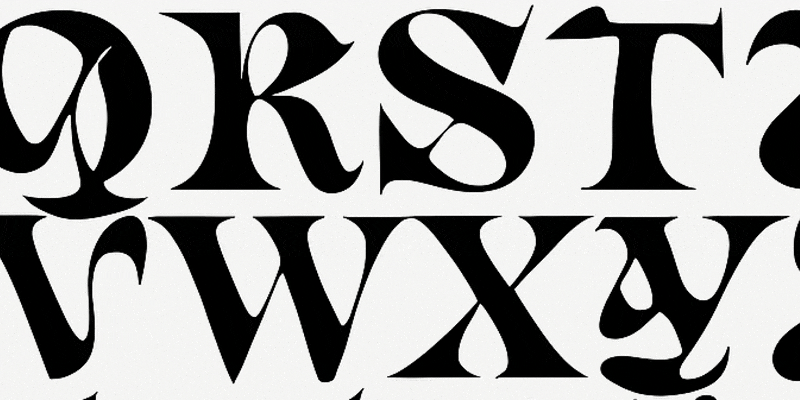
AI Fonts and Non-Human Typography
We've recently noticed an increased interest in AI in virtually every aspect of our lives. AI fonts, which had previously seemed like a distant possibility, are now just one ChatGPT subscription away.
Whenever a new AI feature is released, Twitter always has an outcry announcing the industry's inevitable collapse. We wanted to address our concern with the latest developments and explain why an AI-generated font will never be a valid substitute for a typeface designed by a professional designer. While we know some of our points may apply to other industries, we'll concentrate on typography and fonts, as they are our main areas of expertise.
Creativity vs Meticulousness
Typography, and particularly type design, isn't a very creative pursuit. Of course, it's not entirely devoid of creativity, but for the most part, the job of a type designer is being meticulous. Designing a typeface takes months and sometimes even years. This time is mainly spent perfecting Bezier curves, adjusting kerning, and tweaking contrast. These adjustments may seem imperceptible initially, but these minute details make type design tricky. One of the best qualities of a type designer is thoroughness and meticulousness. A great typeface isn't always the flashiest, but one that works as a self-contained system in which every letter and symbol is well thought out and designed.
For now, one of the things that fonts generated by the AI lacks is consistency, which, given that it's a large language model that produces no original thought of its own, is a flaw that's not likely to get patched soon. AI fonts may be a fun experiment, but nothing will replace the skill and thoroughness of a professional type designer. You can come up with a cool-looking idea, but it won't hold up to scrutiny from either a technical or stylistic standpoint.
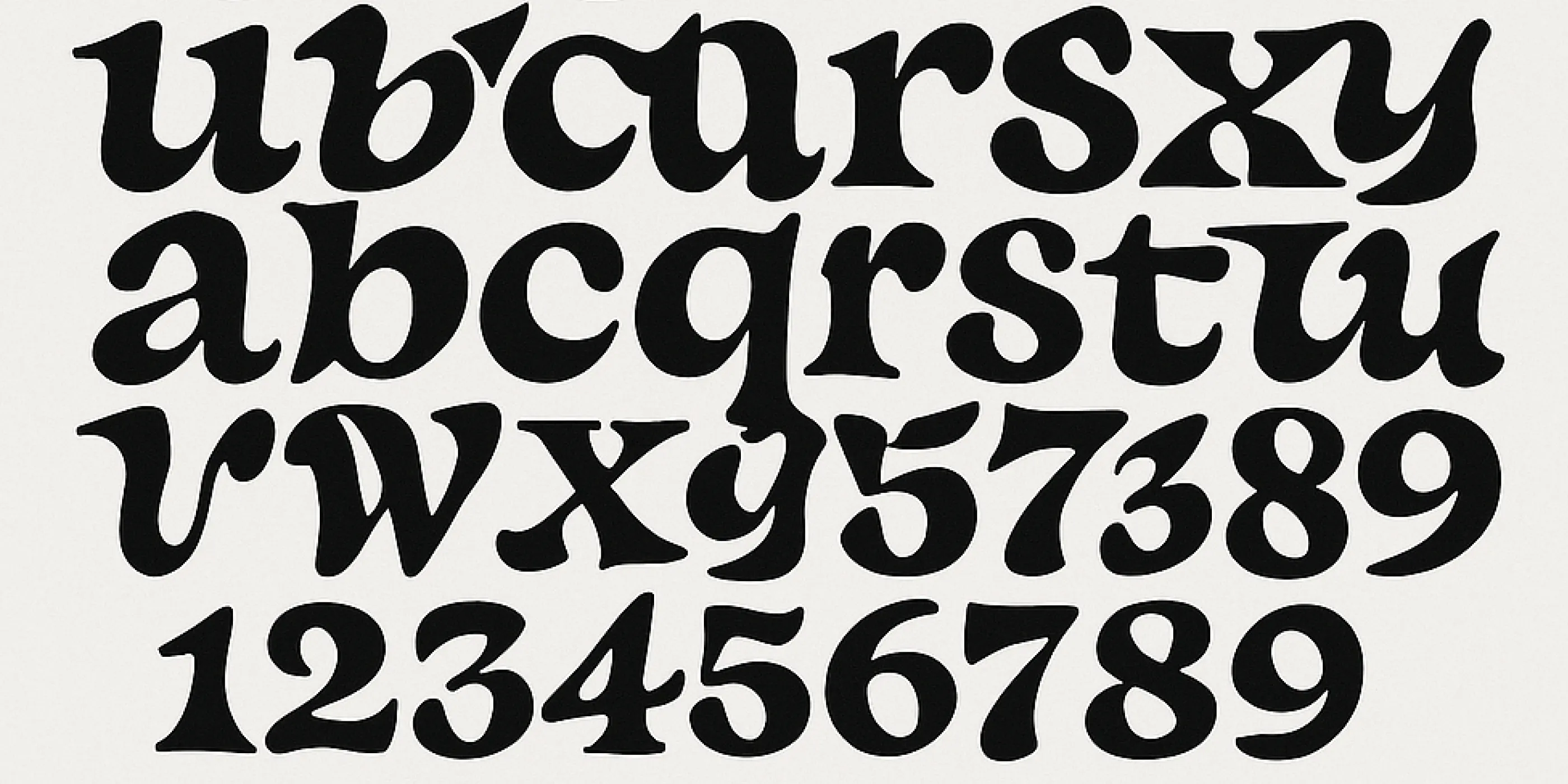
↑ The first iteration of a prompt 'high contrast experimental typeface'
Genuine vs Artificial
To design good fonts, you'd also need to discern good ideas from bad and pick original ideas over kitch—all that is overused, shallow, and uninteresting. Being a professional type designer takes humanity, perception, taste, and love for your craft—all the qualities AI desperately lacks.
For us at Groteskly Yours Studio, any work done by a human is better than that of a robot, however advanced and human-like. For us, it's not just a matter of preference or some subjective pro-human agenda — it's our way of looking at work, life, and our place in the ever-changing AI-dominated modern landscape. There's a reason why a microwavable steak and mashed potatoes will never taste as good as the same meal prepared by a chef — microwavable food is being routinely manufactured, not cooked with love and care.
AI fonts (and any work of art produced by AI) work the same: just as you wouldn't want to treat your loved ones to a machine-made dinner, and you won't want a reused, artificially generated, and likely copied font design for your branding. Human-made typography will always be superior to that of a machine.
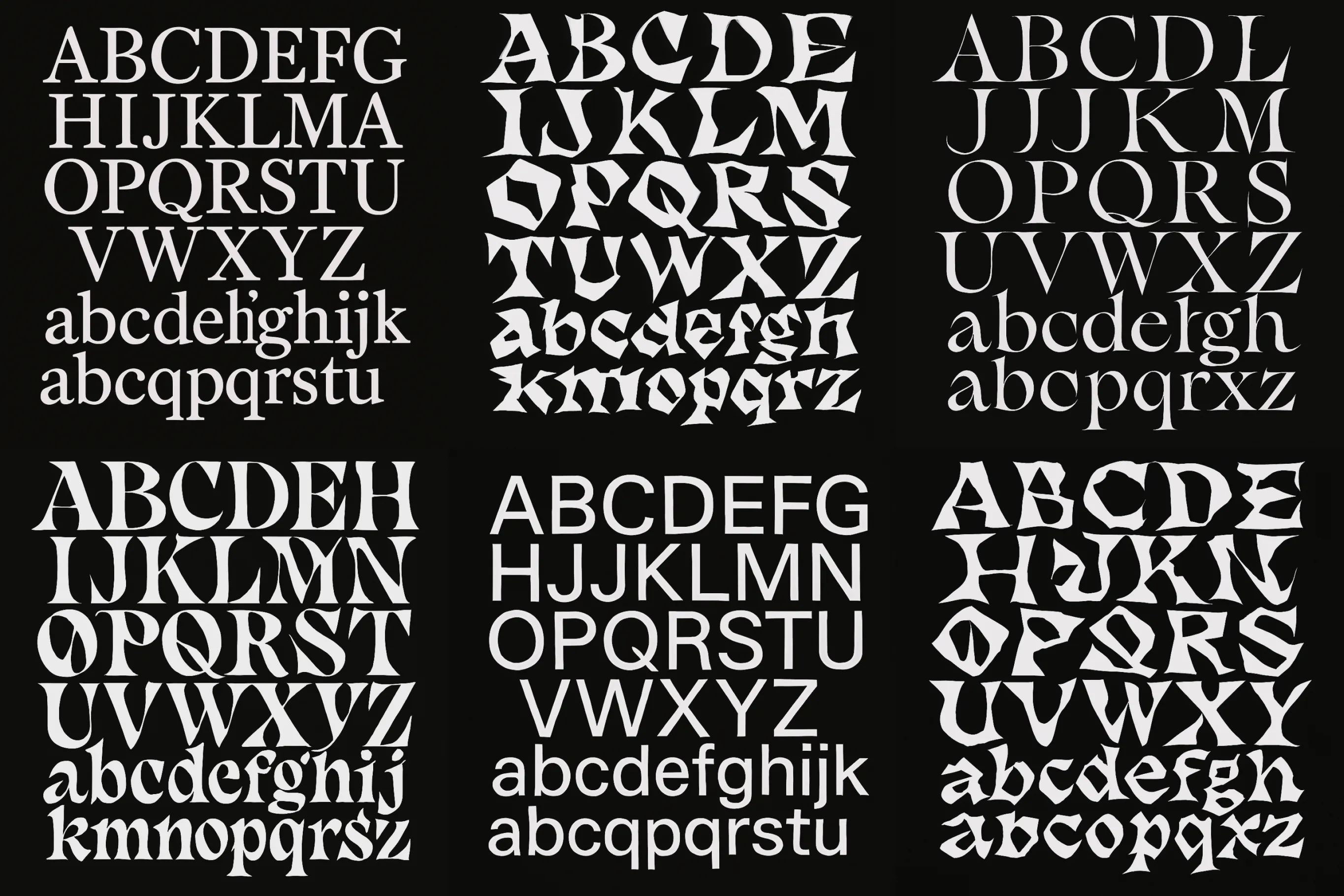
↑ Each image is an attempt to make AI-generated letters more experimental
Source for AI Fonts
As type designers, one of the more significant issues we have with the proliferation of AI fonts is what source material is being used to train these models to produce images with well-defined letters and characters. While none of the examples of AI fonts we've seen are vector-perfect, they are relatively faithful representations of existing letters, often masterfully styled to match the prompt.
For brands planning to use AI fonts in the future, this seemingly cost-effective decision may result in a lawsuit from the rightful owner of the design whose work has been adapted by the AI. Likewise, this is likely a moot point for designers planning to use AI fonts in their work, as designers are often responsible for ensuring the usage complies with the foundry's licensing policies.
An infinitely more interesting implementation of AI technology would be the ability to create AI models trained exclusively on your own work. Once again, it's still unlikely that anything worthwhile would result from that, but that's one way to ensure no one else's work is being used to generate AI fonts.
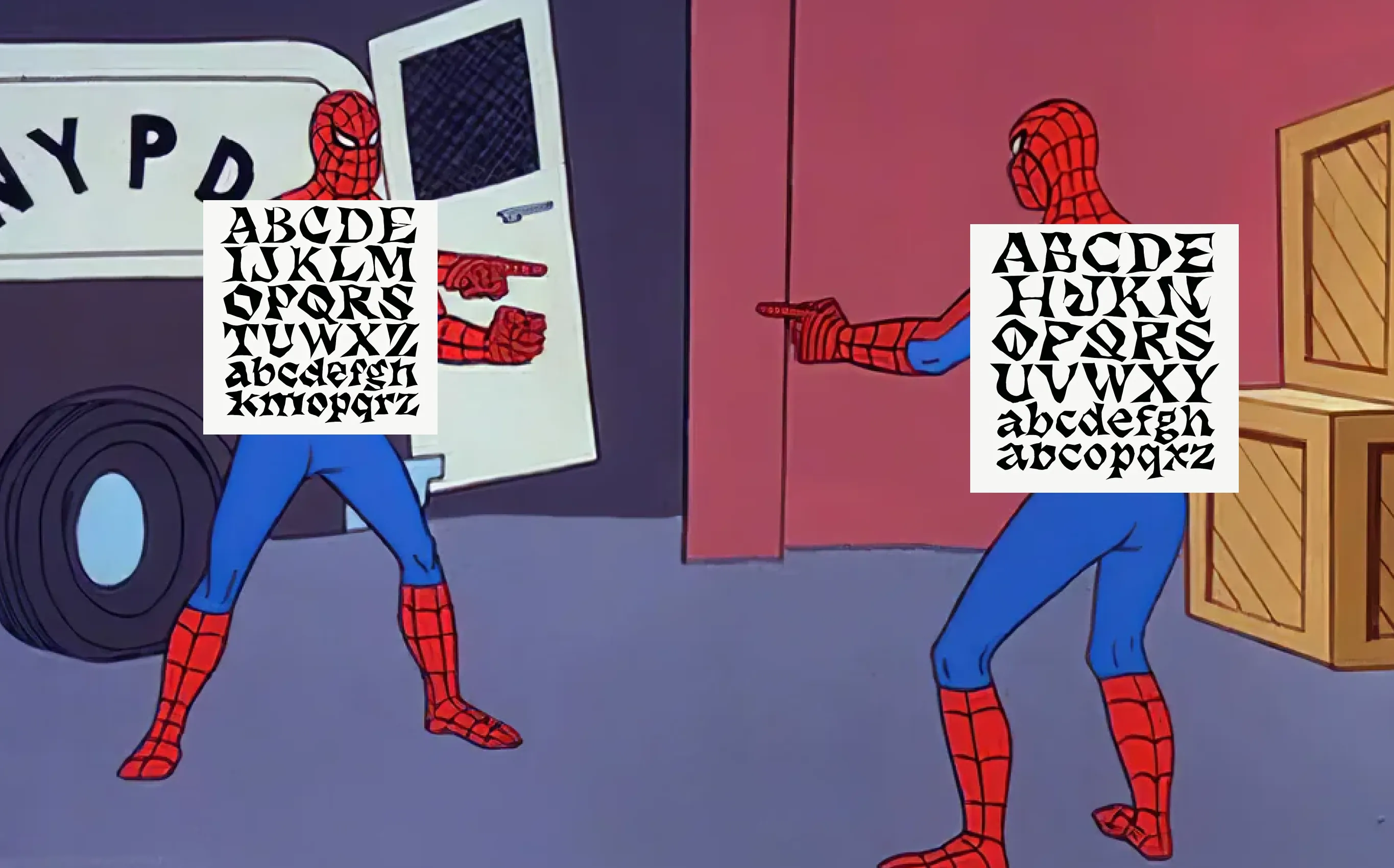
↑ The model clearly uses the same reference to create an 'experimental' AI font in separate chats
What's next for AI Fonts?
The past couple of years saw a massive improvement in the quality of AI-produced work. Yet, despite all that, we are still at a point where any work produced by an AI is inferior to that of a human, both technically and stylistically.
With AI fonts, this trend will likely continue along the same well-trodden track of seeing a massive spike in interest, followed by a general disillusionment caused by the poor quality of work, lack of originality, reused structures, etc. AI fonts will likely be a hot topic for type designers looking to adapt to this new technology and adjust their workflows to integrate it properly.
New things always seem shinier at first. So, while the craze for AI typography is raving, we at Groteskly Yours Studio will remain true to our expertise and continue to develop fonts and typefaces that are not just functional and good-looking but also 100% human-made.